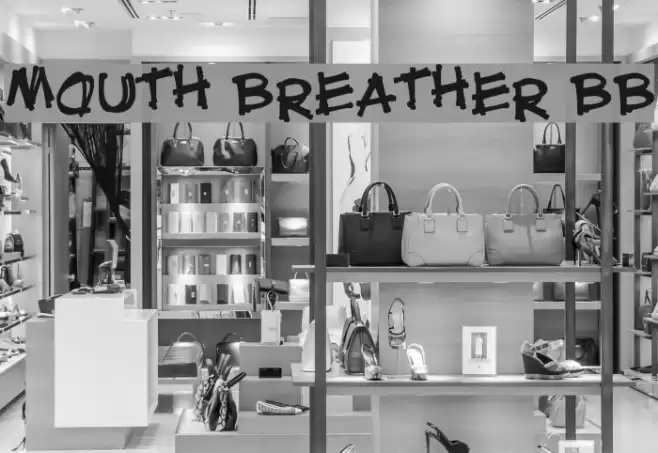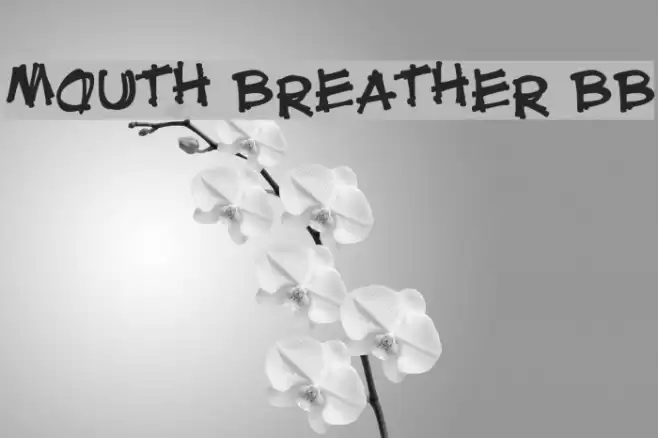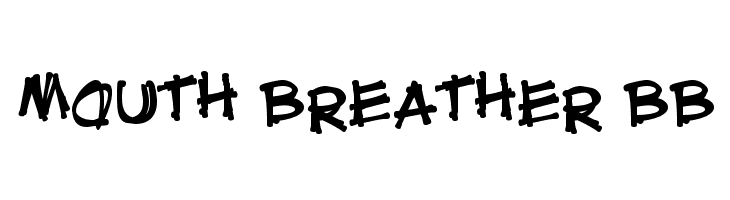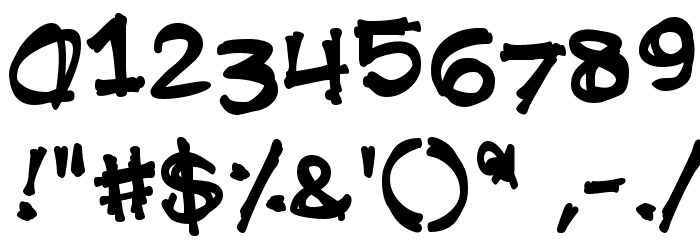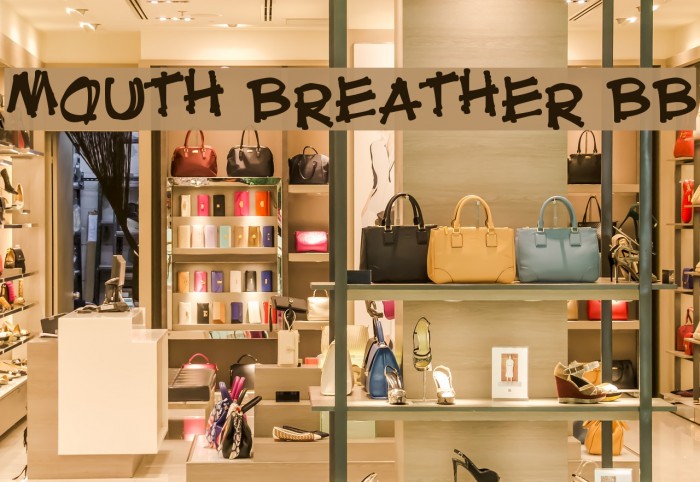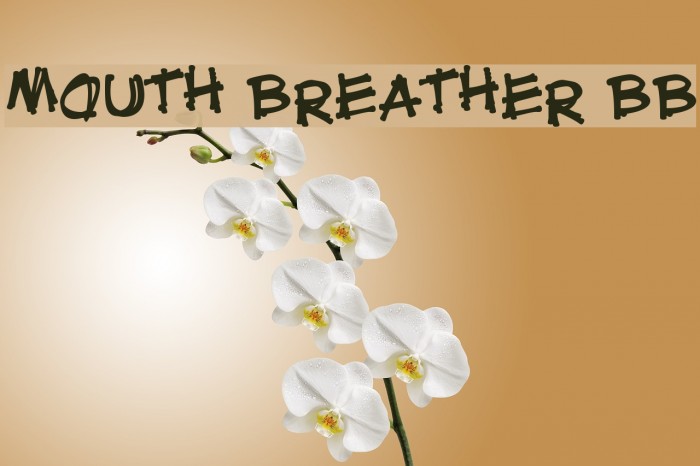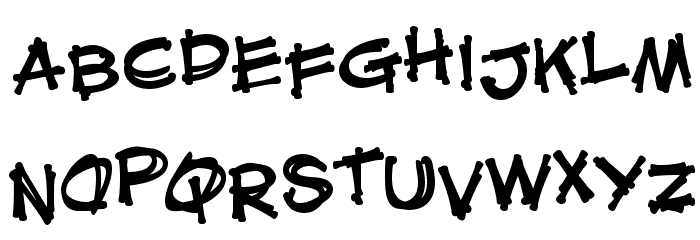
Mouth Breather BB Font
Mouth Breather BB Description
This font features a bold and playful handwritten style with a slightly irregular and casual appearance. The characters are thick and have a dynamic, energetic feel, with some letters featuring unique embellishments and variations in stroke width. The overall look is informal and friendly, making it suitable for creative and fun projects. The font maintains a consistent baseline, but the heights of the letters vary slightly, adding to its whimsical charm. The numbers and special characters are equally bold and maintain the playful aesthetic, ensuring a cohesive look across all text elements.
A bold, playful handwritten font with an energetic and informal style from Handwritten fonts.
- Proposed Projects: Ideal for children's books, comic strips, playful branding, and creative posters.
- Overall Style: Playful